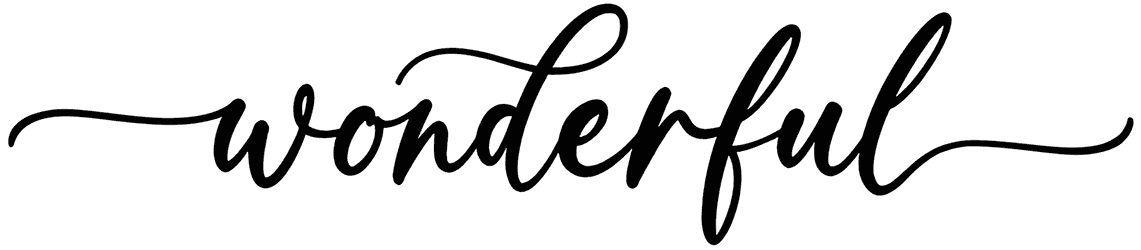
Wonderful Font
Your creative ideas and how you use them can release the power hidden in Wonderful. The characters of this script font are beautifully joined together, and despite reducing the legibility, they have brought a stunning splendor to it.
If you have a personal project that needs a dose of finesse and expense, give this cursive font a try. You will see that your posters and ads have a lot to say!